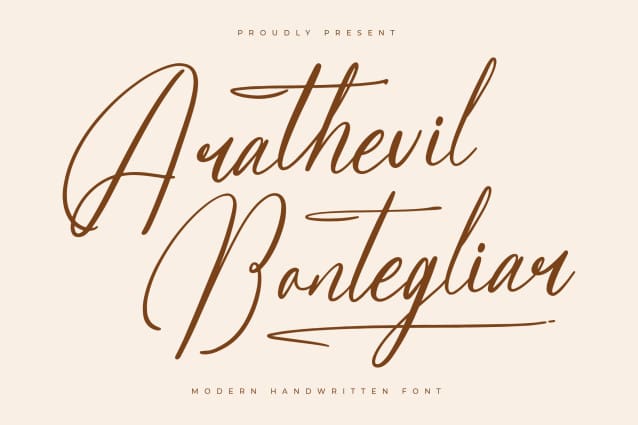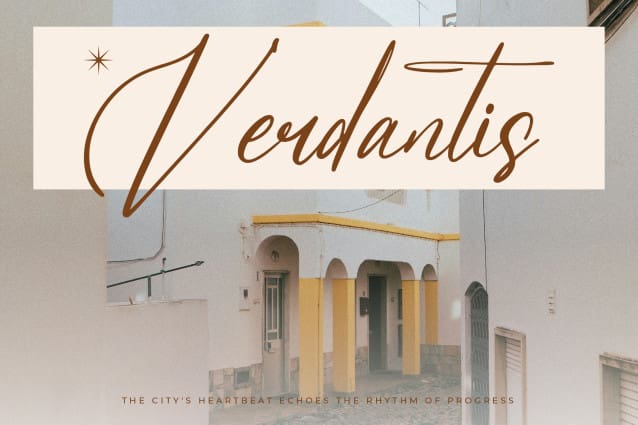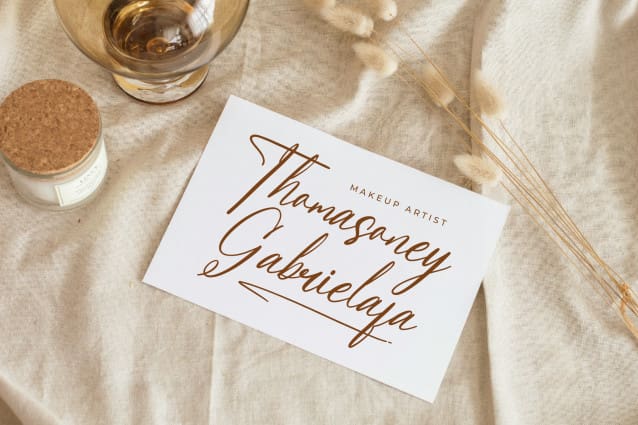
Arathevil Bontegliar Font
Arathevil Bontegliar Font – Modern Handwritten Font , from Letterena, is a Luxury Script font, suitable for any projects such as: logos, branding projects, homeware designs, product packaging, mugs, quotes, posters, shopping bags, t-shirts, book covers, name card, invitation cards, greeting cards, label, photography, watermark, special events, and all your other luxury and beautiful projects that need a Luxury Script taste.